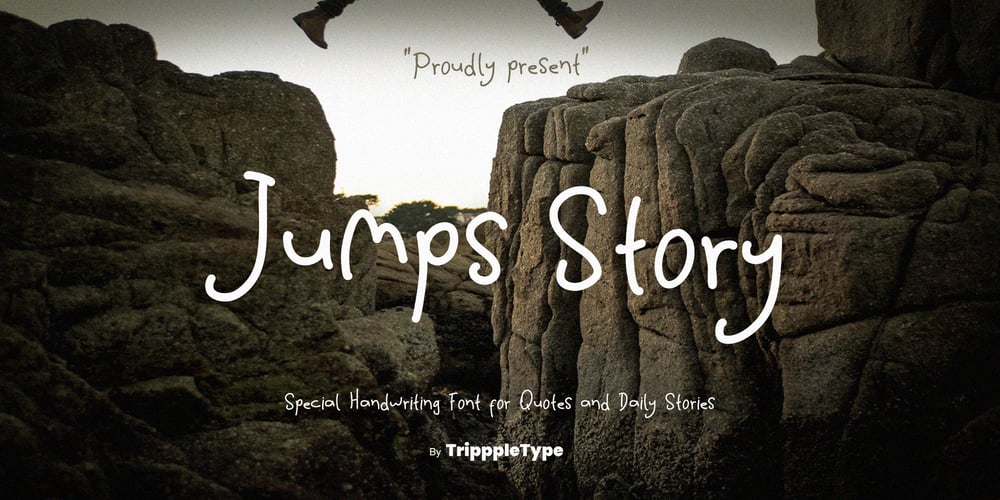
Jumps Story Handwritten Font Family was designed by Kang Nur and published by TripppleType. Jumps Story Handwritten contains 1 styles and family package options. Jumps Story is a lively, dynamic handwritten font that’s perfect for capturing the energy of your posts and videos. Whether it’s an inspiring daily story or a vibrant music lyric video, this font gives your content a playful, energetic flair. With its unique style, Jumps Story is all about movement and creativity, helping you express your ideas with joy and personality.Elevate your projects with Jumps Story. Download now and infuse your posts and videos with a burst of energy and personality. Let your creativity leap to new heights with this unique font!